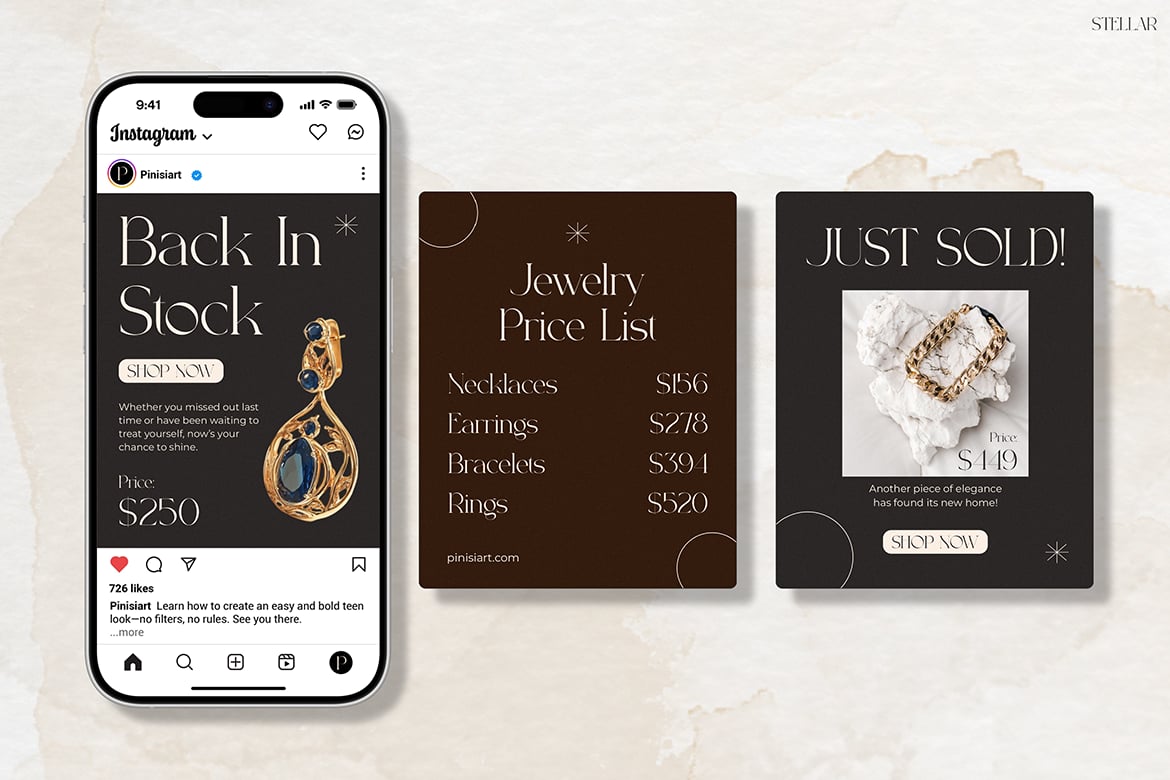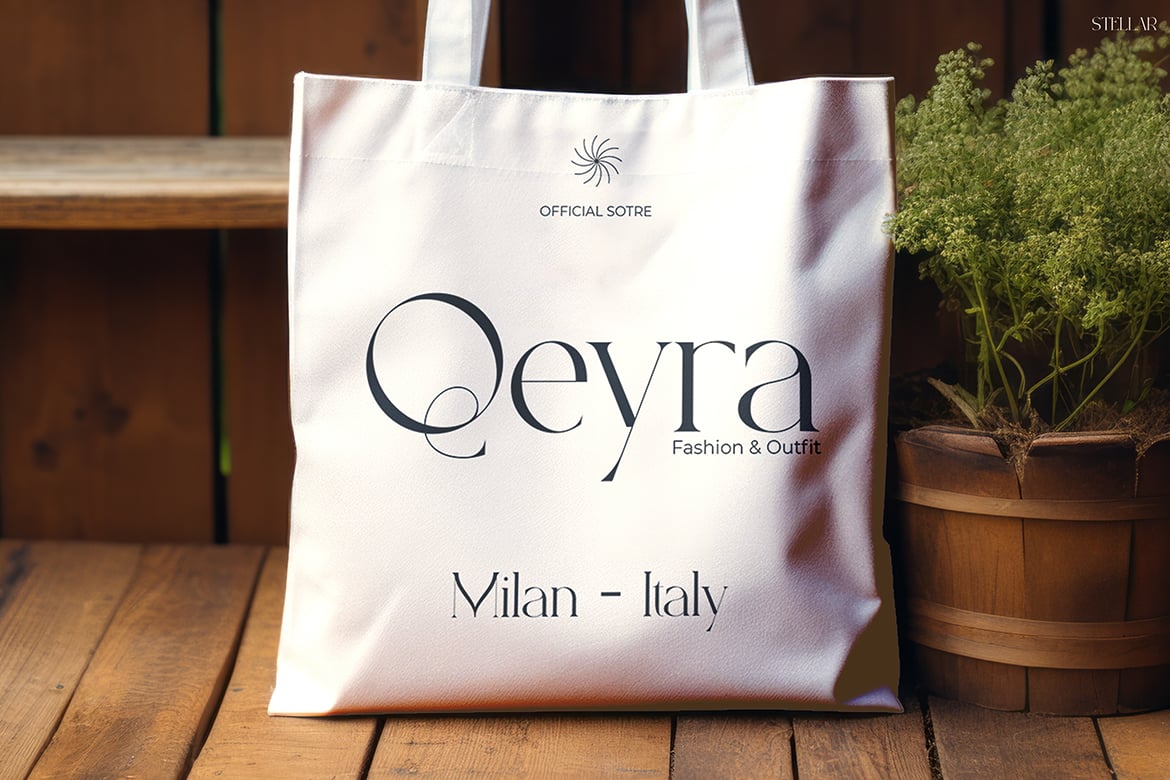
Stellar is a refined serif by Pinisiart with very fine hairlines, sharp terminals and tall, slightly narrow letters. Set large, as in the specimen’s single-word title, it looks calm and expensive. The lowercase keeps the same delicate contrast, so it holds together across a whole line, not just in capitals.
The specimens show it on jewellery price lists, Instagram sale posts and a tote-bag logo, which is a fair summary of where it fits. The full version includes OTF, TTF and WOFF files with basic Latin letters, numbers and punctuation, and works in Adobe apps and Microsoft Word.
Best uses for Stellar
- Jewellery, fashion and beauty brand logos
- Instagram posts, stories and highlight covers
- Price lists and menus for boutiques and cafés
- Packaging and swing tags
- Magazine-style headlines
Stellar’s thin strokes need a sturdy partner. Montserrat in Regular or Medium works well for prices, buttons and small labels. For longer captions, Lato stays readable on phones. If you want a matching serif for body copy, Cormorant Garamond shares its elegant mood at text sizes.